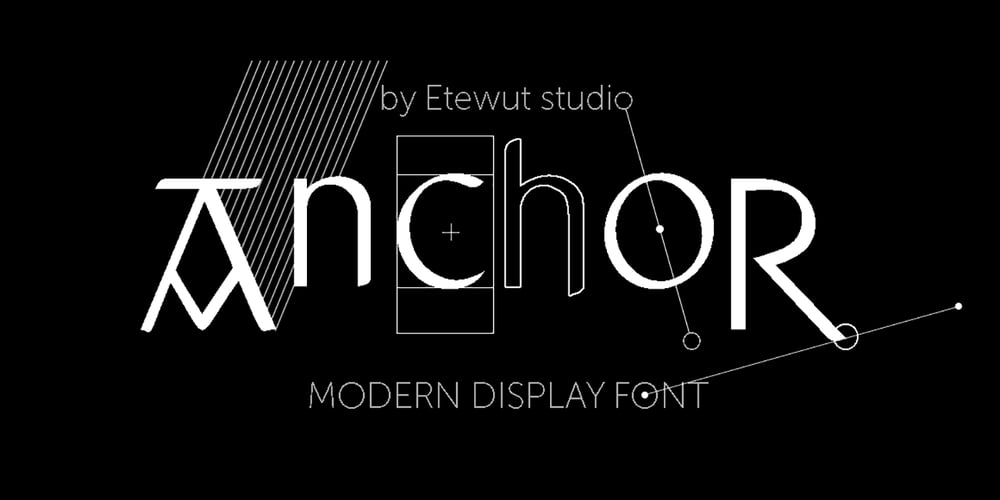
Anchor Font Family was designed by Alex Etewut and published by Etewut. Anchor contains 4 styles and family package options. I glad to introduce to you my new display font Anchor. I was inspired by Russian fairy tales with cyrillic lettering. So I hope you’ll keep a bit of fairy in you upcoming products using my font. Please, mind a spirit! It perfectly fits to making design from corporative identity to Xmas cards. And it has extra symbols for european languages.